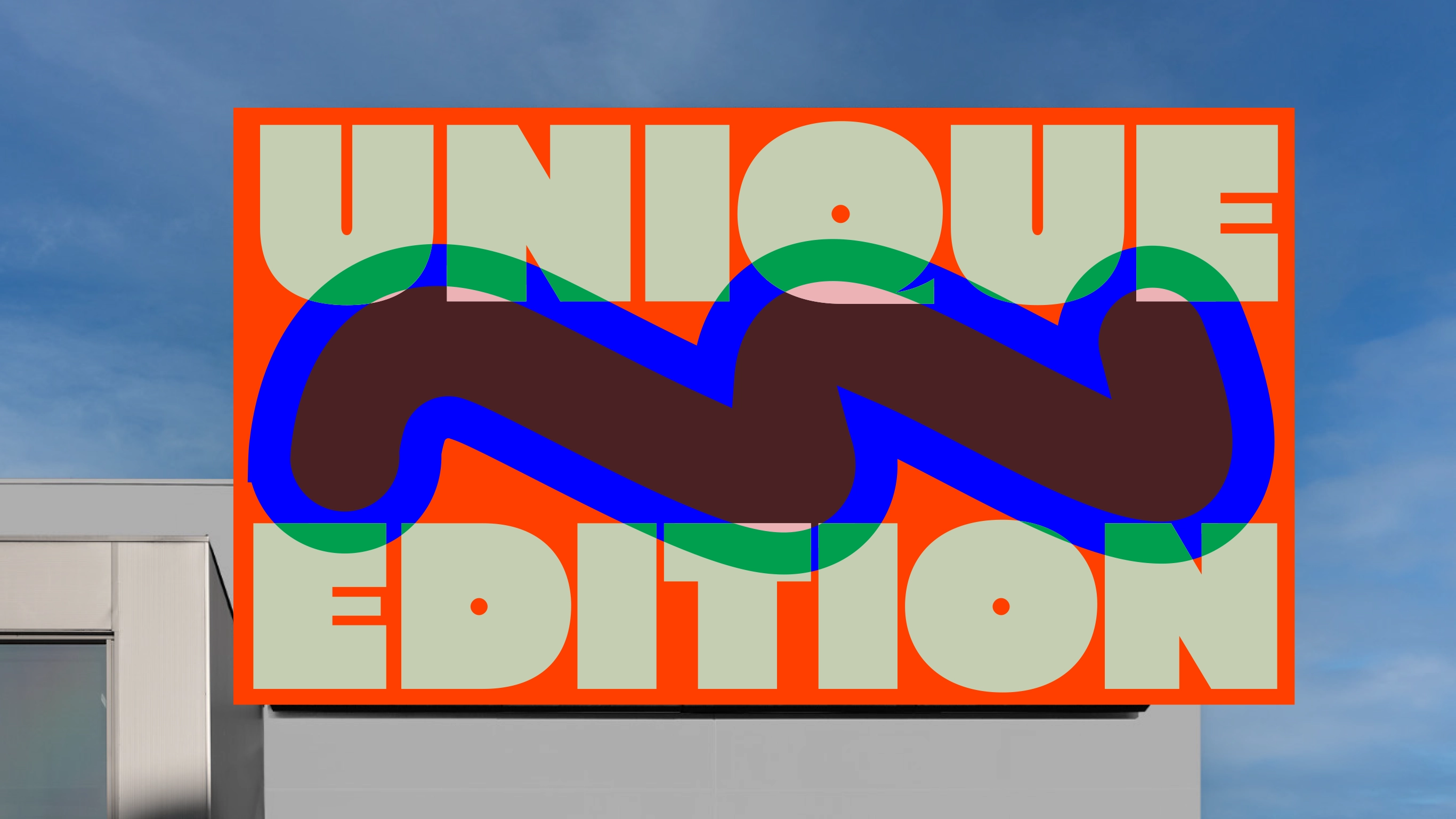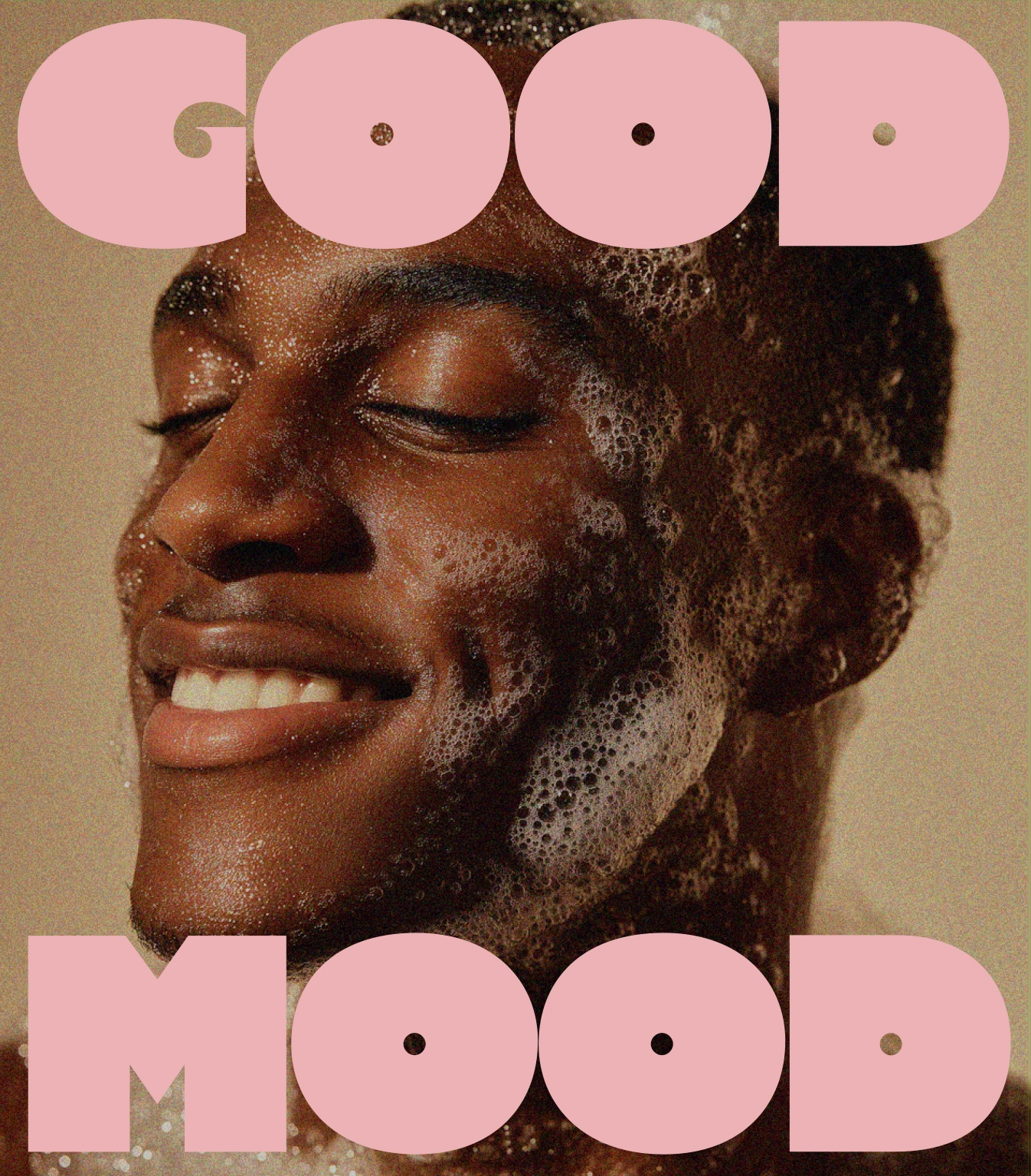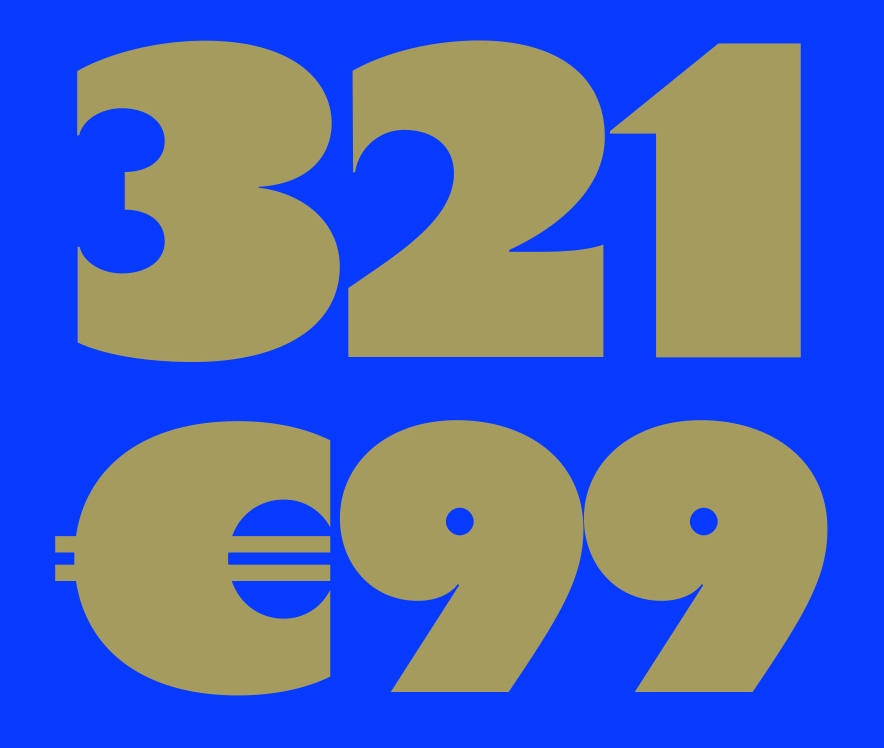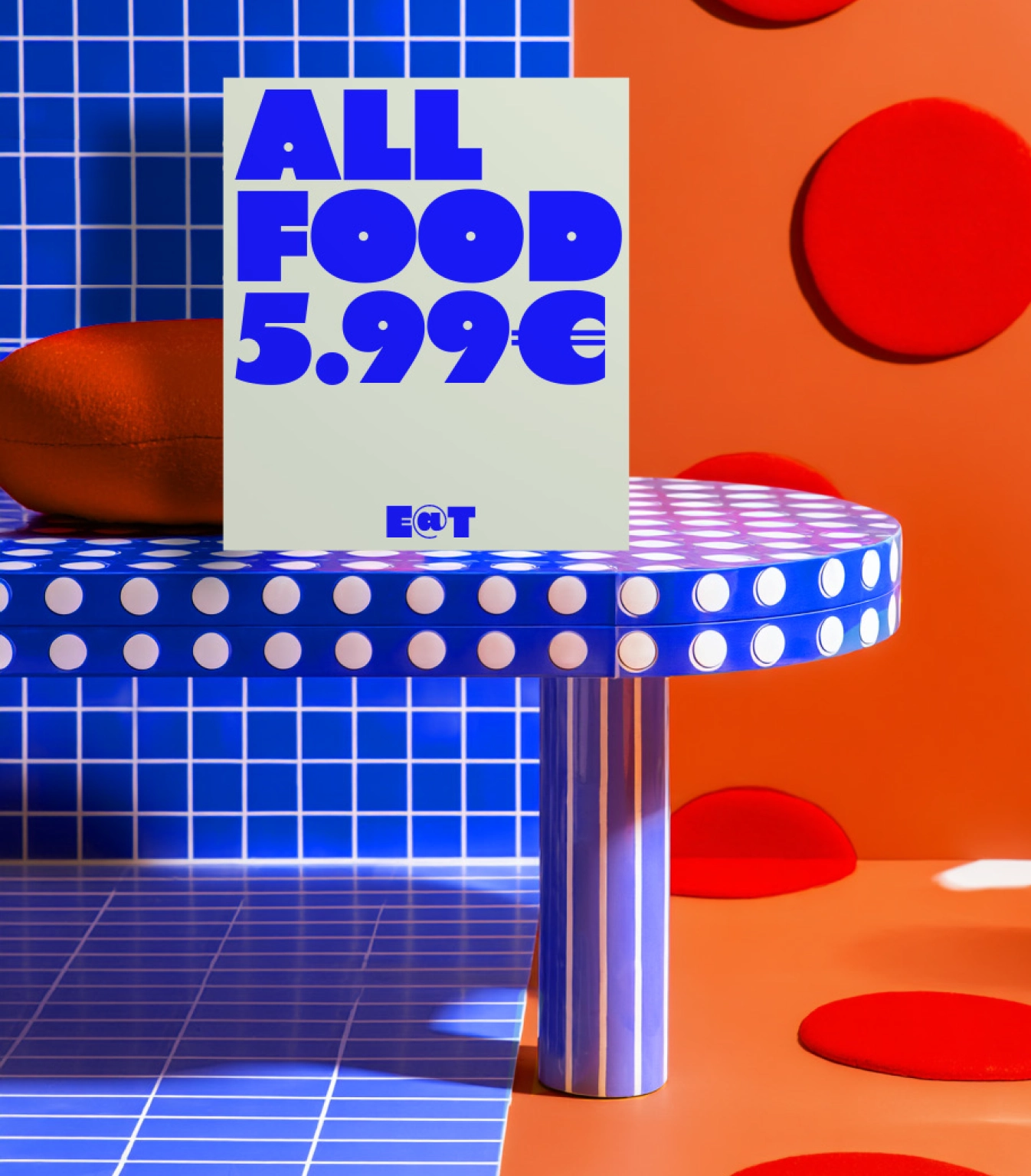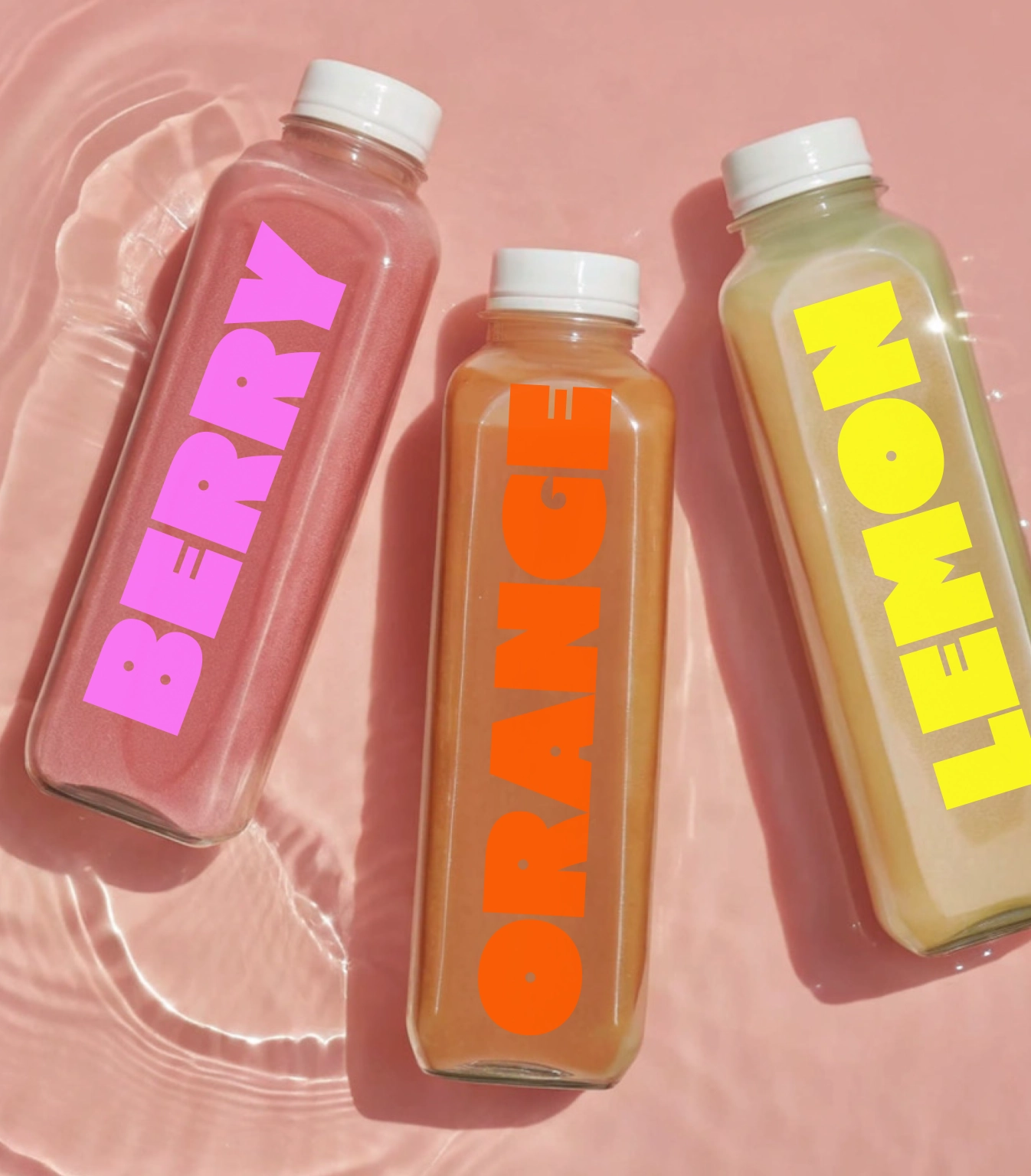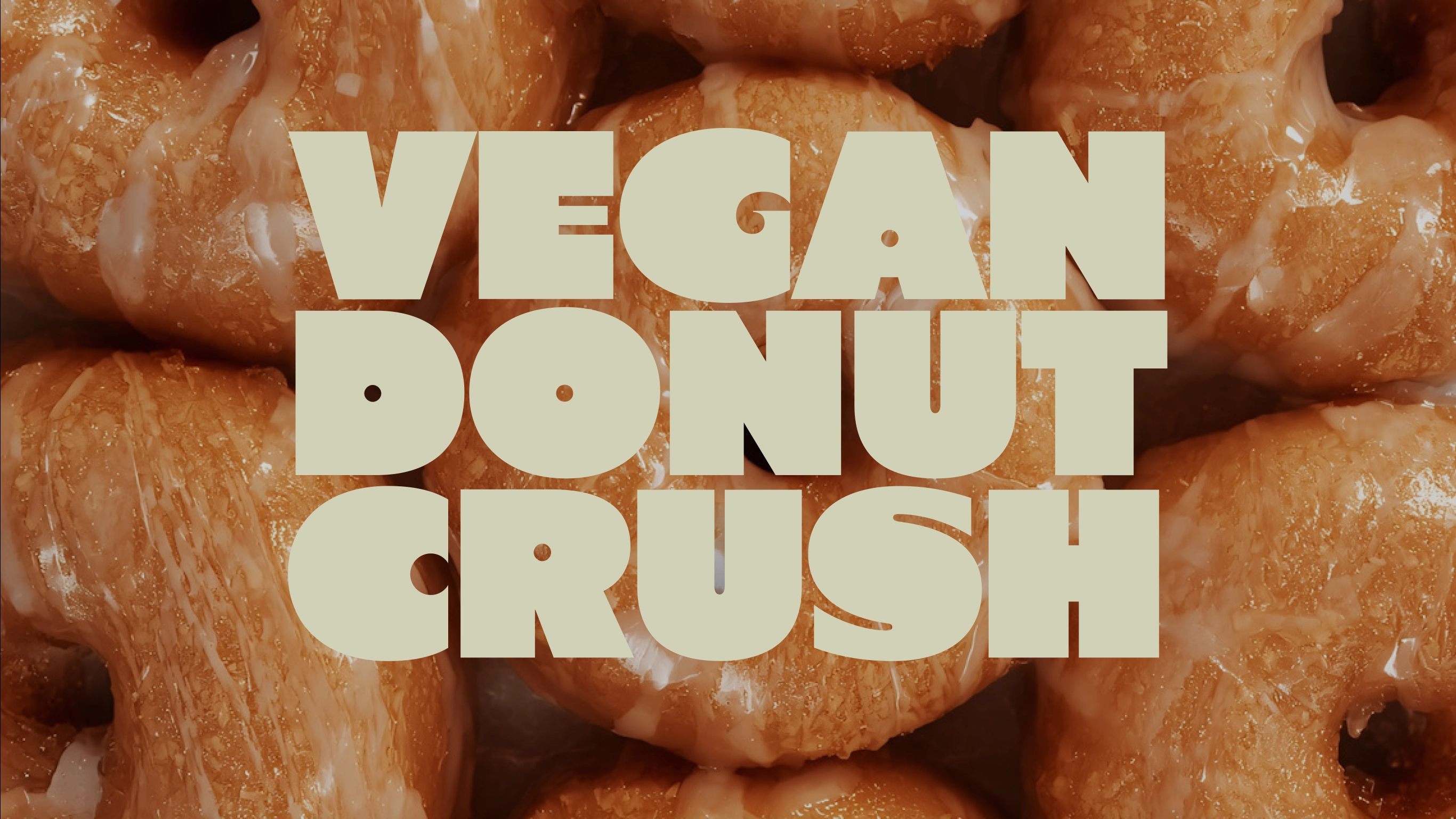
Unique
This is a heavy sans serif built with confident proportions and a soft, square geometry. Bold and approachable by nature, Unique is a font that fills space with weight and warmth. Friendly curves meet structural clarity, making it a perfect choice for brands that want to feel both strong and human. Designed for expressive identities and packagings, that make you taste it at first glance.